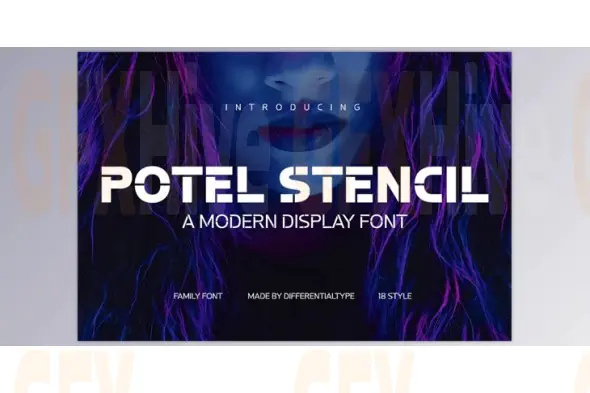
Potel Stencil Font is a cutting-edge modern typeface that combines futuristic design with elegant cut-out details. This versatile font family includes 18 style variations, ranging from thin to black weights and corresponding italics, giving designers a full spectrum of options for any project. Each letterform is meticulously crafted with unique cut-outs, creating a dynamic, high-tech, and visually engaging aesthetic.
The bold and distinctive style of Potel Stencil makes it perfect for a wide range of creative applications:
Posters & Print Design: Stand out with eye-catching stencil typography.
Movie Marketing & Entertainment Campaigns: Give titles and graphics a futuristic, memorable look.
Album Covers & Music Branding: Add a bold, contemporary style to your artwork.
Logotypes & Branding: Unique cut-outs give logos a modern edge.
Commercial Packaging: Enhance product visuals with stylish, attention-grabbing type.
Designed to be both striking and versatile, Potel Stencil is ideal for designers, artists, and branding professionals who want their work to convey modern clarity, technological sophistication, and a lasting visual impact. Its clean lines and futuristic cut-outs ensure your designs are bold, contemporary, and unforgettable.
Key Features:
18 style variations (Thin to Black + Italics)
Unique cut-out letterforms for a futuristic aesthetic
Perfect for posters, logos, album covers, branding, and packaging
Flexible for both digital and print projects
Modern, bold, and technologically inspired design
Use Cases:
Posters & Print Media
Album & Music Artwork
Movie & Entertainment Graphics
Branding & Logo Design
Commercial Packaging & Product Design